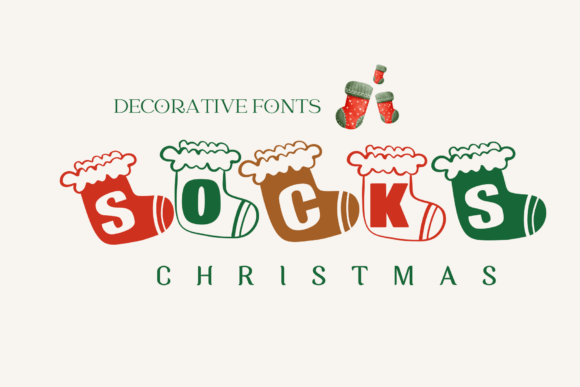
Socks Christmas Font: A Festive and Fun Typeface for Your Holiday Designs
Are you looking for a unique and playful font to add some holiday cheer to your designs? Look no further than Socks Christmas Font, a decorative typeface featuring fluffy socks that’s perfect for creating festive and fun designs. In this article, we’ll take a closer look at Socks Christmas Font, its features, and how you can use it to create amazing holiday designs.
What is Socks Christmas Font?
Socks Christmas Font is a decorative font designed to capture the spirit of the holiday season. The font features fluffy socks, which give it a playful and whimsical feel. The font is perfect for creating designs that require a personal touch, such as greeting cards, invitations, and social media posts.
Key Features of Socks Christmas Font
- Unique Design: Socks Christmas Font features a unique design with fluffy socks that sets it apart from other fonts.
- Playful and Whimsical: The font has a playful and whimsical feel that’s perfect for creating festive and fun designs.
- Versatile: Socks Christmas Font can be used for a variety of designs, including greeting cards, invitations, social media posts, and more.
Uses of Socks Christmas Font
Socks Christmas Font is a versatile font that can be used for a variety of designs. Here are some ideas to get you started:
- Greeting Cards: Create festive and fun greeting cards for your friends and family.
- Invitations: Design invitations for holiday parties, gatherings, and events.
- Social Media Posts: Add some holiday cheer to your social media posts with Socks Christmas Font.
- Mugs and Water Bottles: Create custom mugs and water bottles with festive designs.
- T-Shirts and Apparel: Design custom t-shirts and apparel for the holiday season.
- Stationery: Create custom stationery, including notebooks, journals, and paper.
- Banners: Design festive banners for your website, social media, or events.
Tips and Tricks for Using Socks Christmas Font
Here are some tips and tricks for using Socks Christmas Font:
- Use it Sparingly: Use Socks Christmas Font sparingly to add a touch of whimsy to your designs.
- Pair it with Other Fonts: Pair Socks Christmas Font with other fonts to create a unique and interesting design.
- Experiment with Colors: Experiment with different colors to find the perfect combination for your design.
- Use it for Headings: Use Socks Christmas Font for headings and titles to add a touch of festivity.
Socks Christmas Font is a fun and festive font that’s perfect for adding some holiday cheer to your designs. With its unique design, playful feel, and versatility, it’s a great addition to any designer’s font library. Whether you’re creating greeting cards, invitations, social media posts, or more, Socks Christmas Font is sure to bring a smile to people’s faces.
- Q: What is Socks Christmas Font?
A: Socks Christmas Font is a decorative font featuring fluffy socks that’s perfect for creating festive and fun designs.